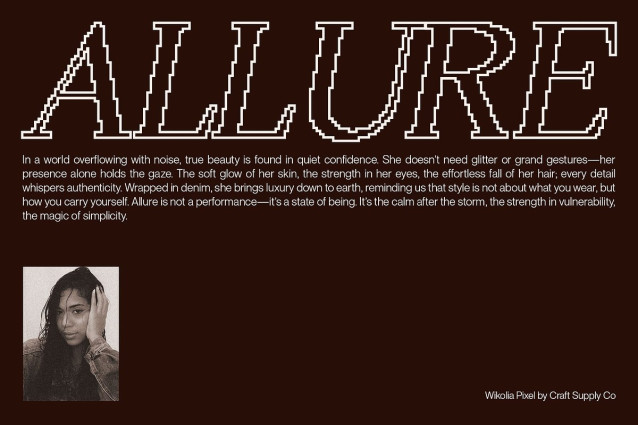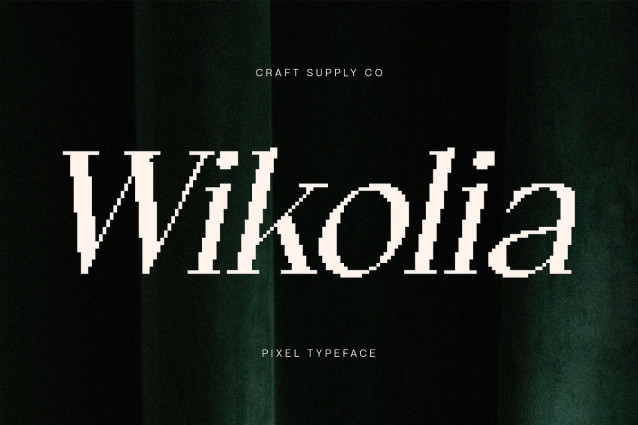
Wikolia Pixel Font
Wikolia Pixel Font – Minimalism with Confident Precision: Modern Serif with Pixel Contrast Professional and Stylish Expression This is a modern serif font that balances minimalism with confidence. Its elegant serif structure combined with contrast shapes communicates professionalism, making it a font that feels assured and impactful in any context. Pixel Style for Sharp Modern Edge The defining feature of this font is its pixel-inspired detailing. This digital influence adds a crisp and sharp edge to the design, infusing modernity into its classic serif foundation. The result is a font that feels both timeless and contemporary, bridging tradition with innovation. Confidence Through Contrast Shapes By incorporating contrast in its letterforms, projects a sense of self-confidence and authority. The strong shapes and refined proportions provide visual strength, while the pixel texture enhances its unique character. Versatile for Editorial and Branding Projects Perfectly suited for editorial spreads, branding identities, or creative projects, this font adapts to both professional and artistic needs. Whether in logos, titles, or layouts, it offers a striking blend of clarity, elegance, and digital precision. Download Type Speciment: What you get : – Wikolia Pixel Regular – Wikolia Pixel Outline Features : – Uppercase and lowercase characters – Numerals and Punctuation (OpenType Standard) – Accents (Supports Multilingual Characters) – PUA Encoding You can use this typeface without needing any specialized software. If you have any inquiries or need assistance, please feel free to contact us. We appreciate your support in enhancing your creative projects! Best regards, Craft Supply Co.